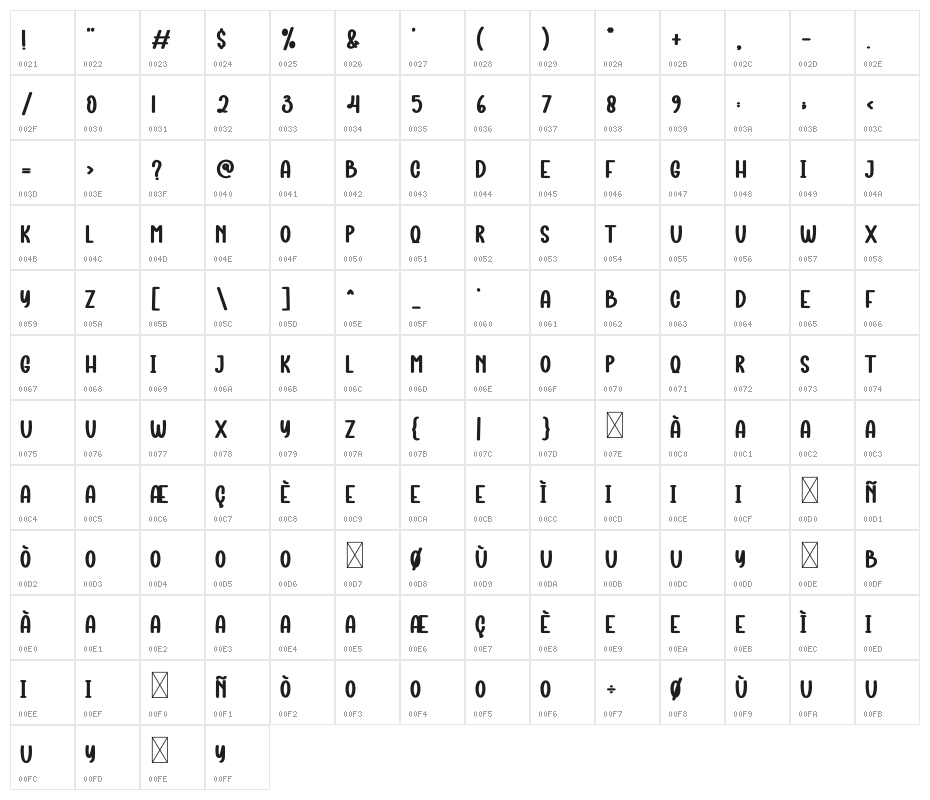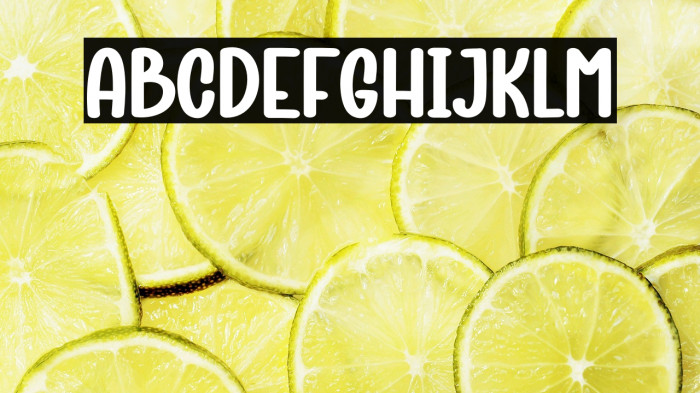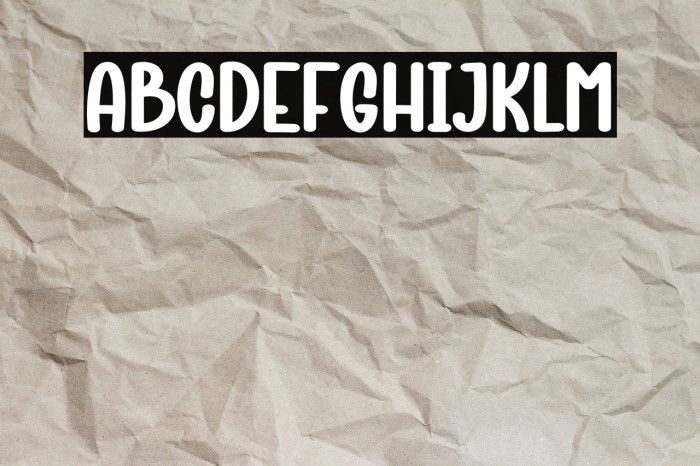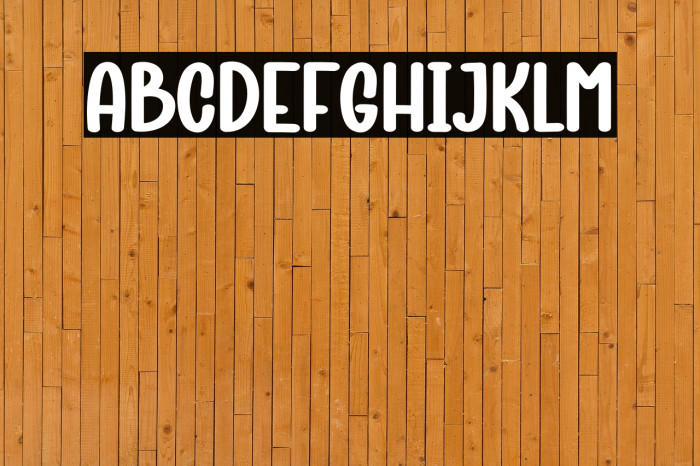
Barbie Town Font
Barbie Town Description
A playful, rounded font with a casual and friendly appearance, featuring uniform stroke widths and slightly condensed letterforms.
| Overall Style | Casual and playful |
| Proposed Projects | Children's books, playful branding, casual invitations. |